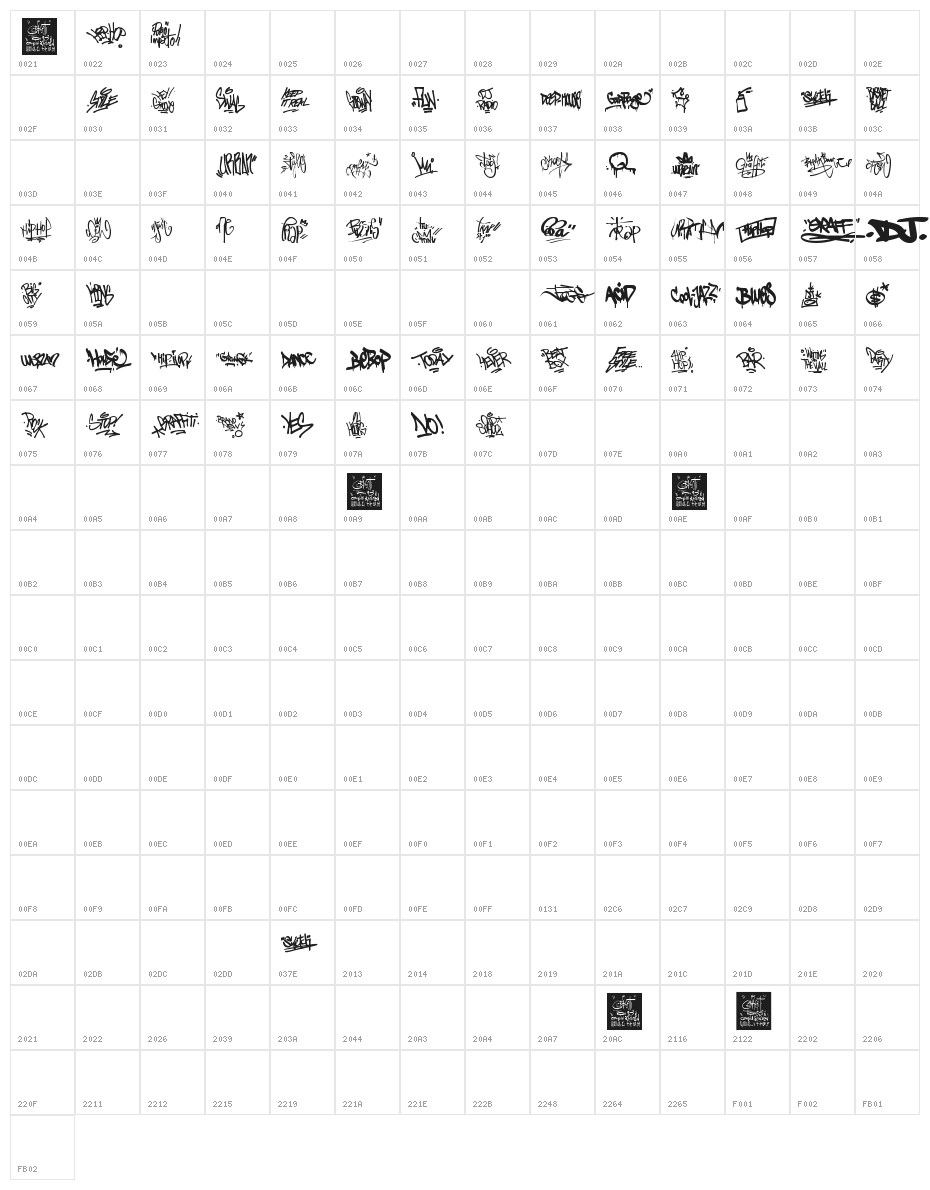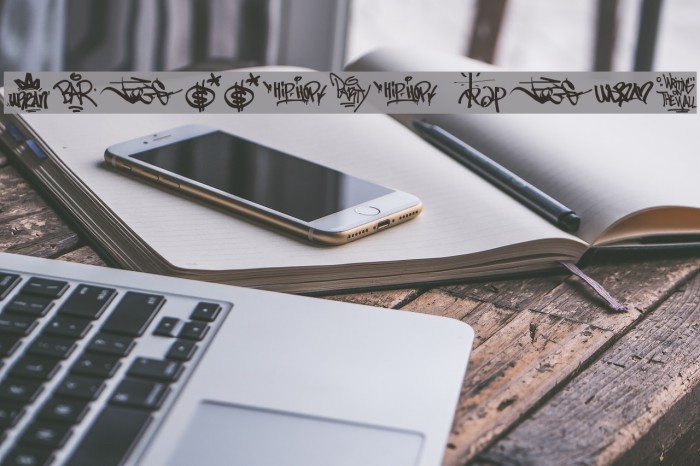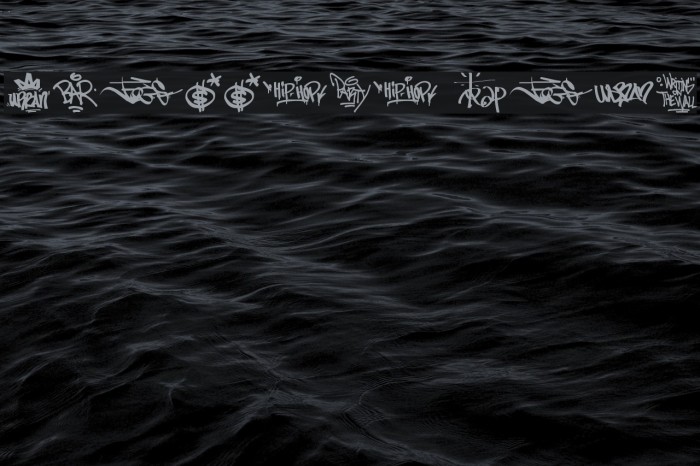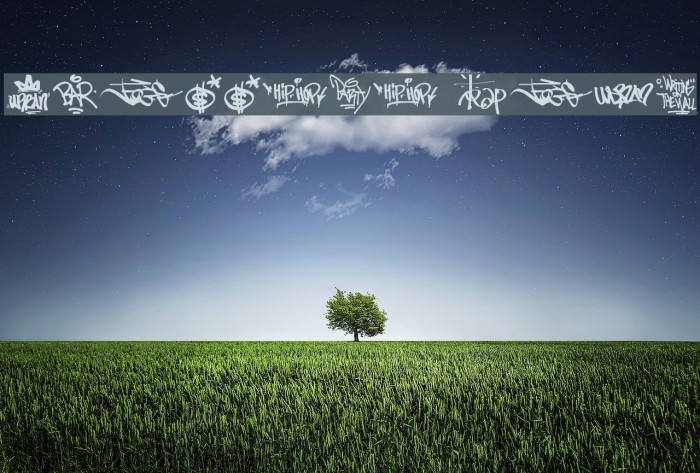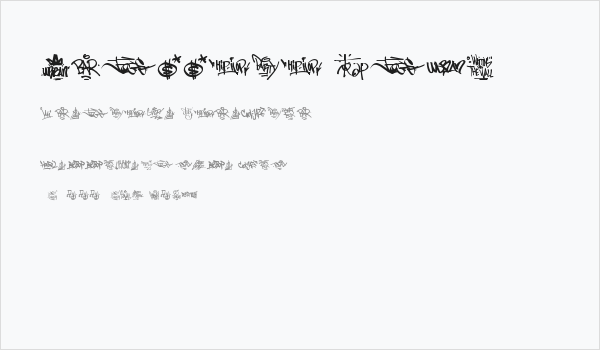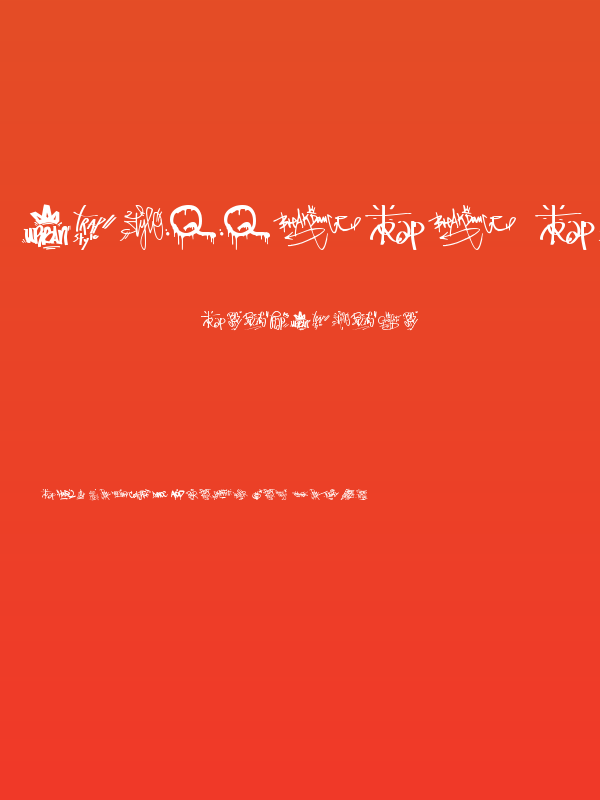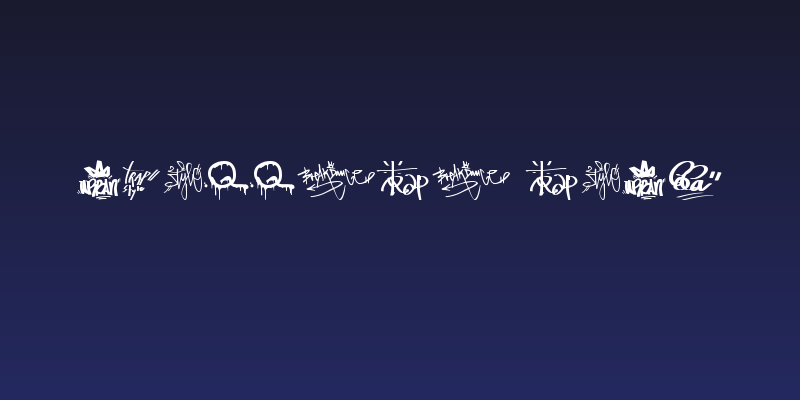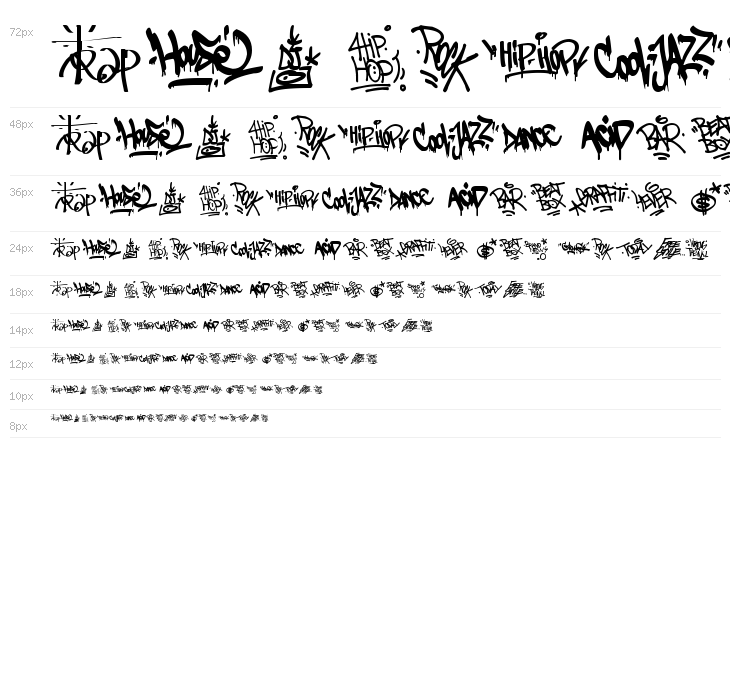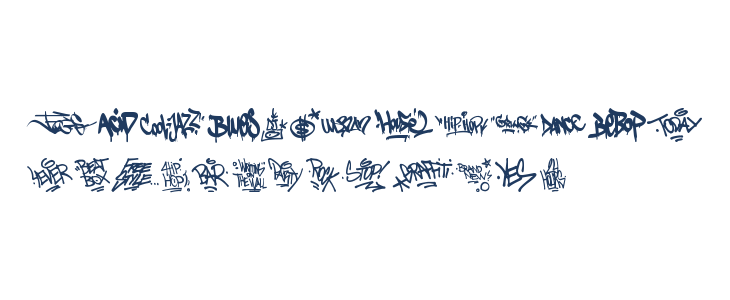
Graffiti Tags Font
Graffiti Tags Description
This font embodies the raw and expressive style of urban graffiti art. Each character is uniquely crafted with dynamic strokes and a sense of movement, capturing the rebellious spirit of street culture. The letters are highly stylized, often featuring exaggerated curves and sharp angles, which create a sense of urgency and energy. The font's design is chaotic yet controlled, with varying line thicknesses that add depth and texture. It is perfect for projects that aim to convey a sense of edginess and authenticity, making it ideal for urban-themed designs, music album covers, and streetwear branding.
Overall StyleUrban, Edgy, Rebellious
Proposed ProjectsIdeal for urban-themed designs, music album covers, streetwear branding, and event posters.